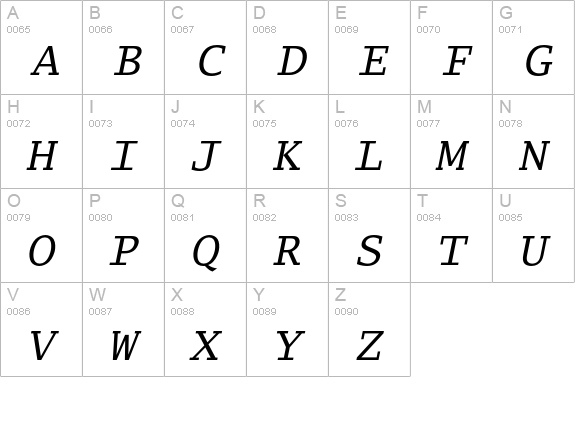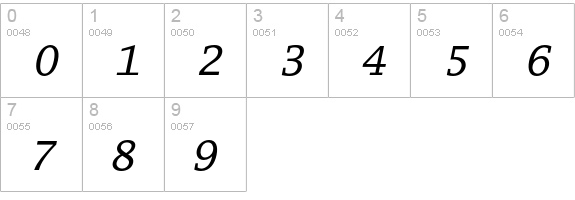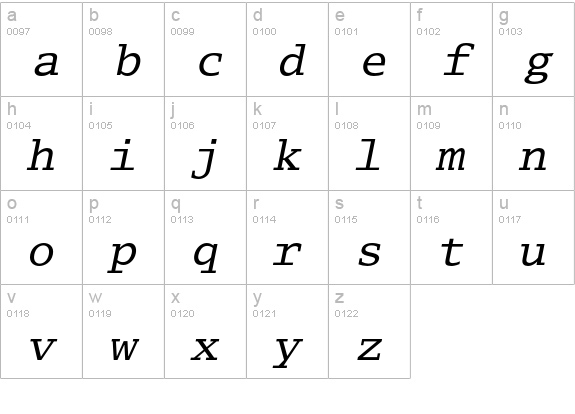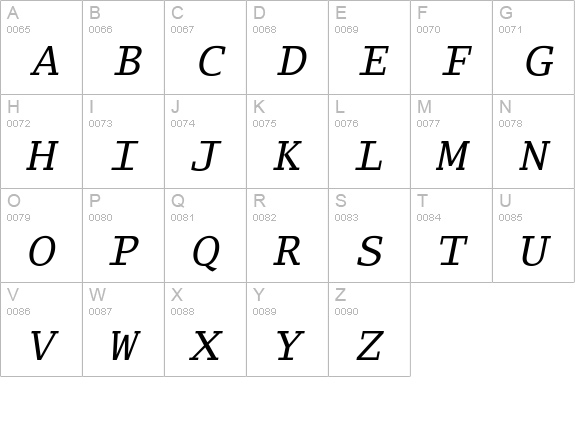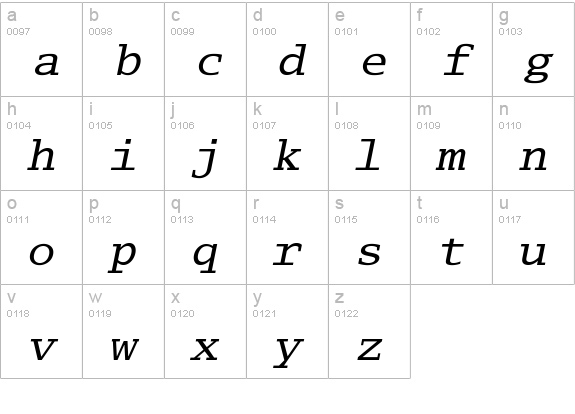
Lucida Typewriter Oblique is a distinctive, italic variant in the Lucida typeface family \xE2\x80\x94 well suited to design and typography projects.
Lucida Typewriter Oblique font is a stylish and versatile typeface that exudes a sense of elegance and sophistication. Its sleek and modern design makes it a perfect choice for various design projects, from editorial layouts to branding materials. The slanted characters in this font add a touch of dynamism and uniqueness to any text. What sets Lucida Typewriter Oblique font apart is that it is available for free download at FontsMarket.com. This means that you can easily access this high-quality font without any cost, making it a valuable resource for designers and creators looking to enhance their work with a professional and distinctive typeface. Whether you're designing a website, creating marketing materials, or working on a personal project, Lucida Typewriter Oblique font is sure to make a statement with its clean lines and contemporary style.